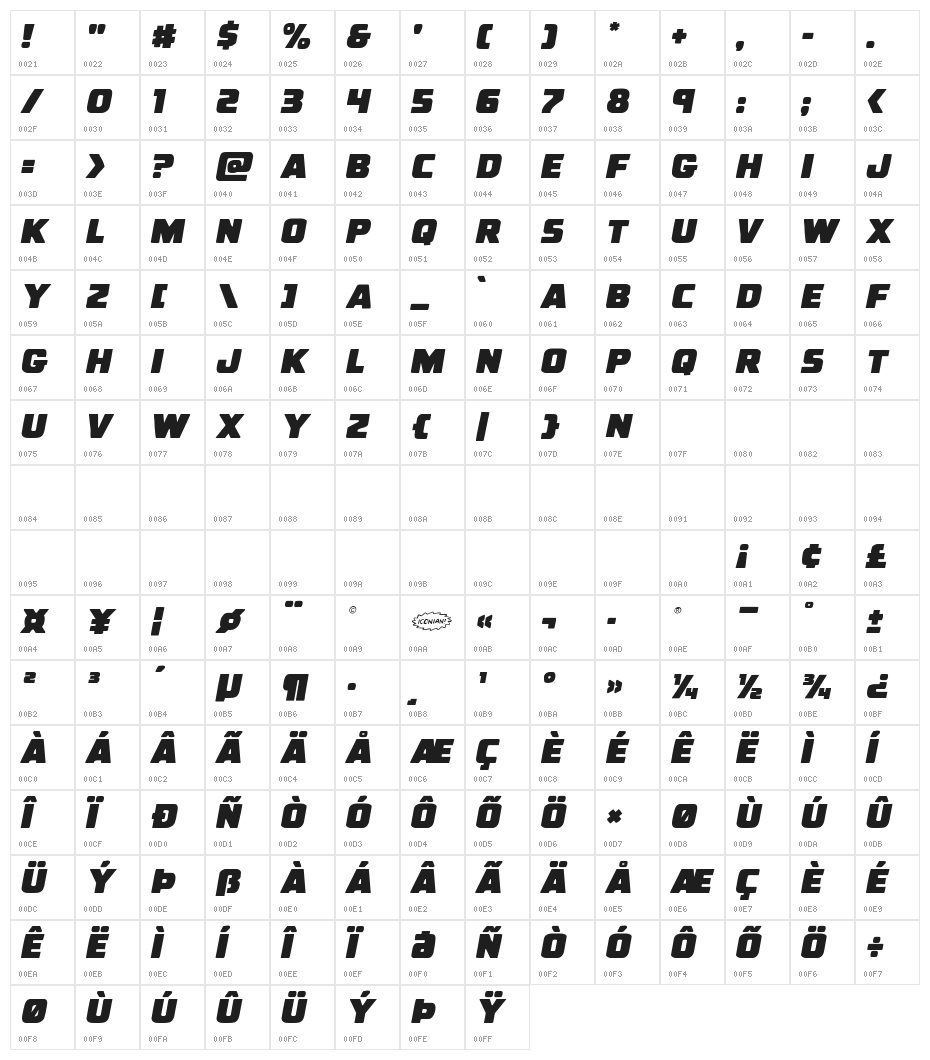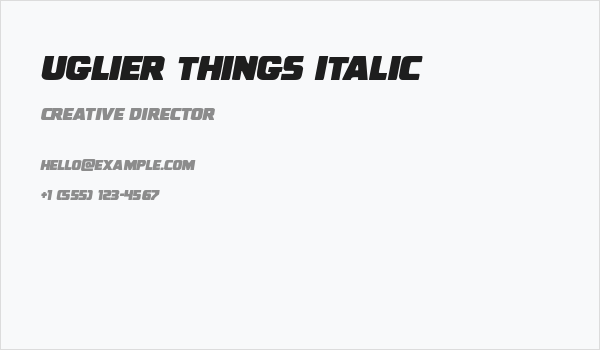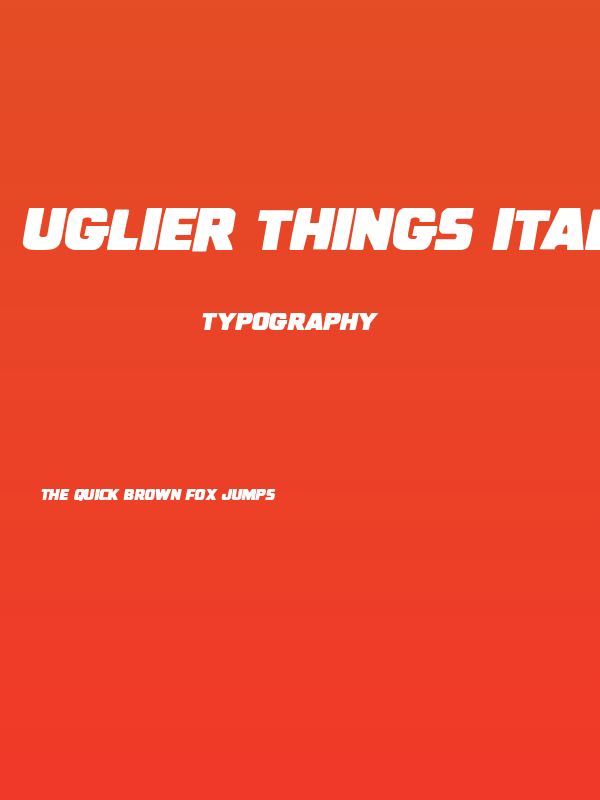
Uglier Things Italic Font
Uglier Things Italic Description
This bold and dynamic font features a strong italic slant, giving it a sense of motion and energy. The characters are thick and robust, with a slightly condensed width that enhances its impactful presence. The font maintains a consistent stroke weight throughout, resulting in a low contrast between thick and thin lines. Its boldness and slant make it suitable for attention-grabbing designs. The character spacing is tight, contributing to its compact and cohesive appearance. This style is ideal for projects that require a modern and assertive look, such as sports branding, action-themed posters, or dynamic headlines.
| Proposed Projects | Ideal for sports branding, action-themed posters, dynamic headlines, and impactful logos. |